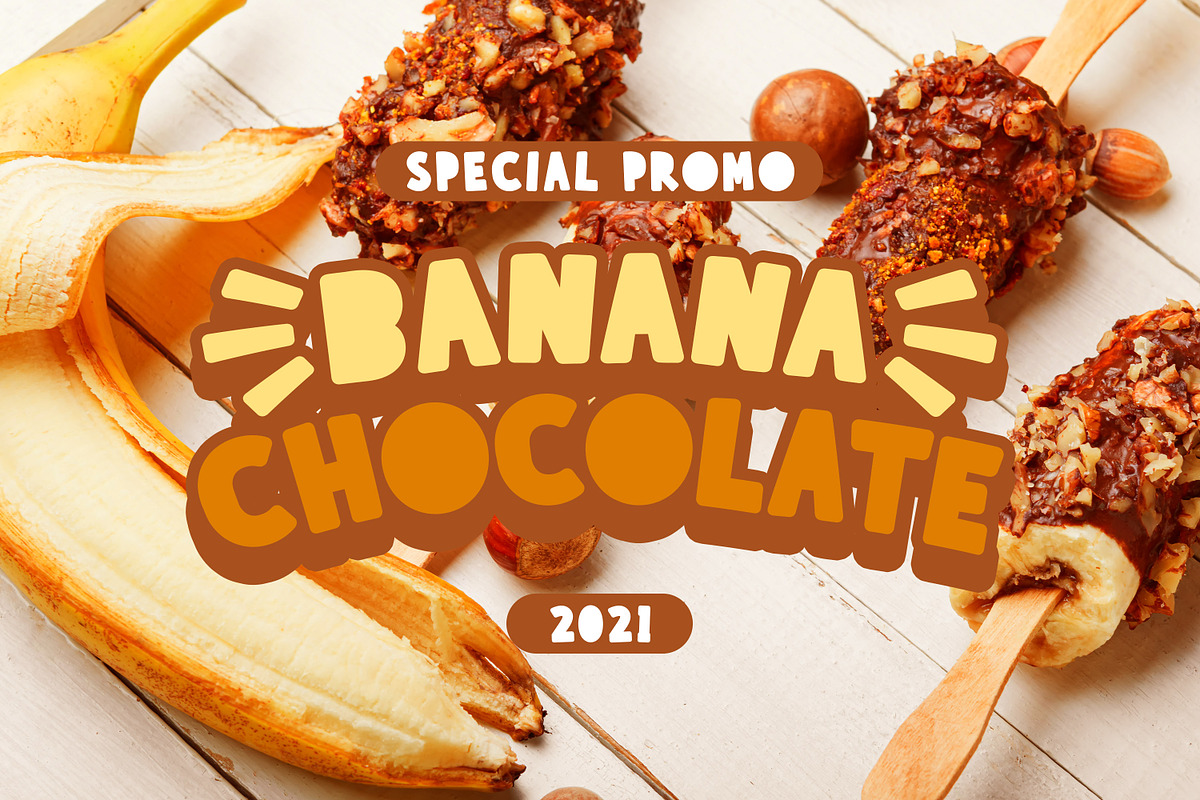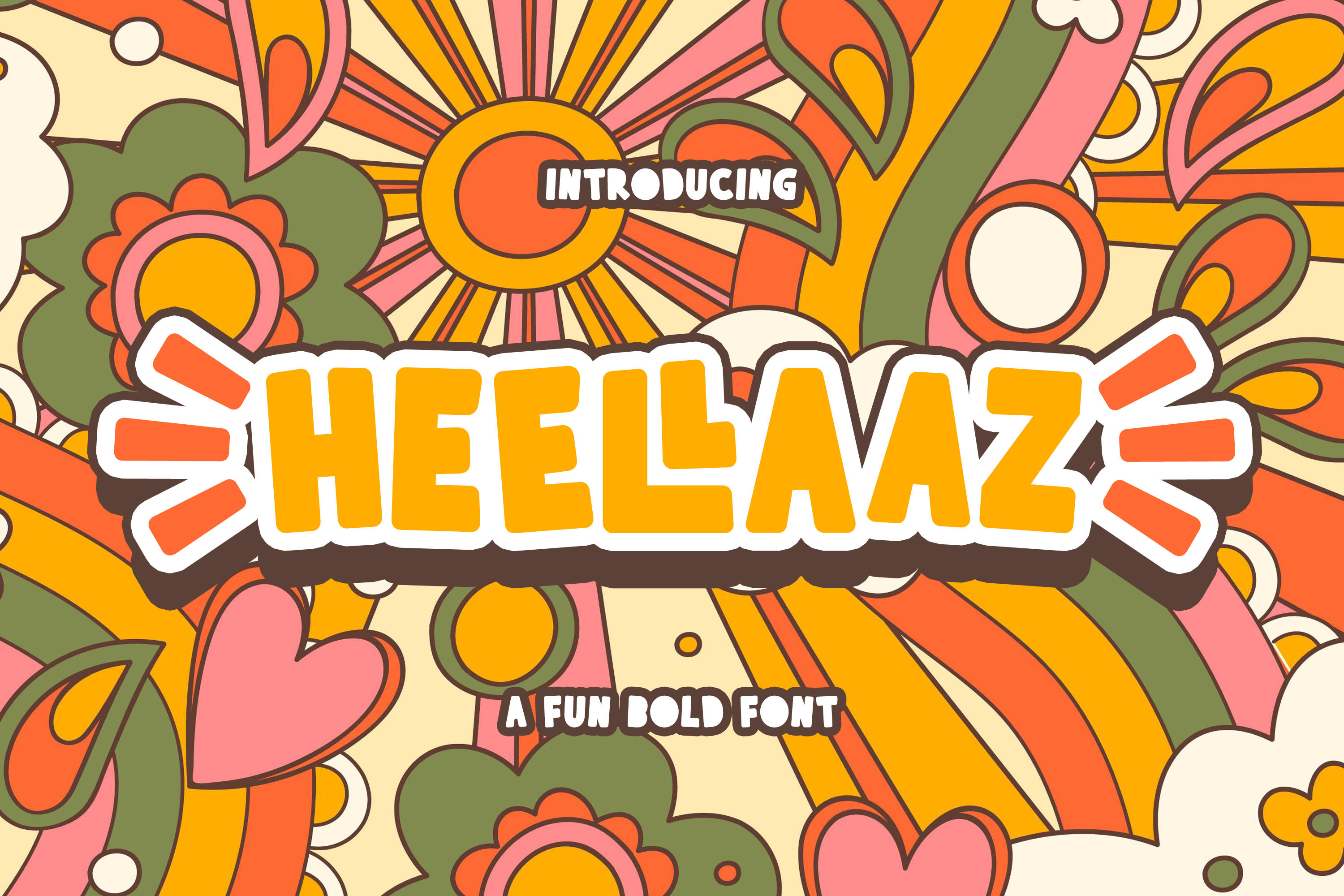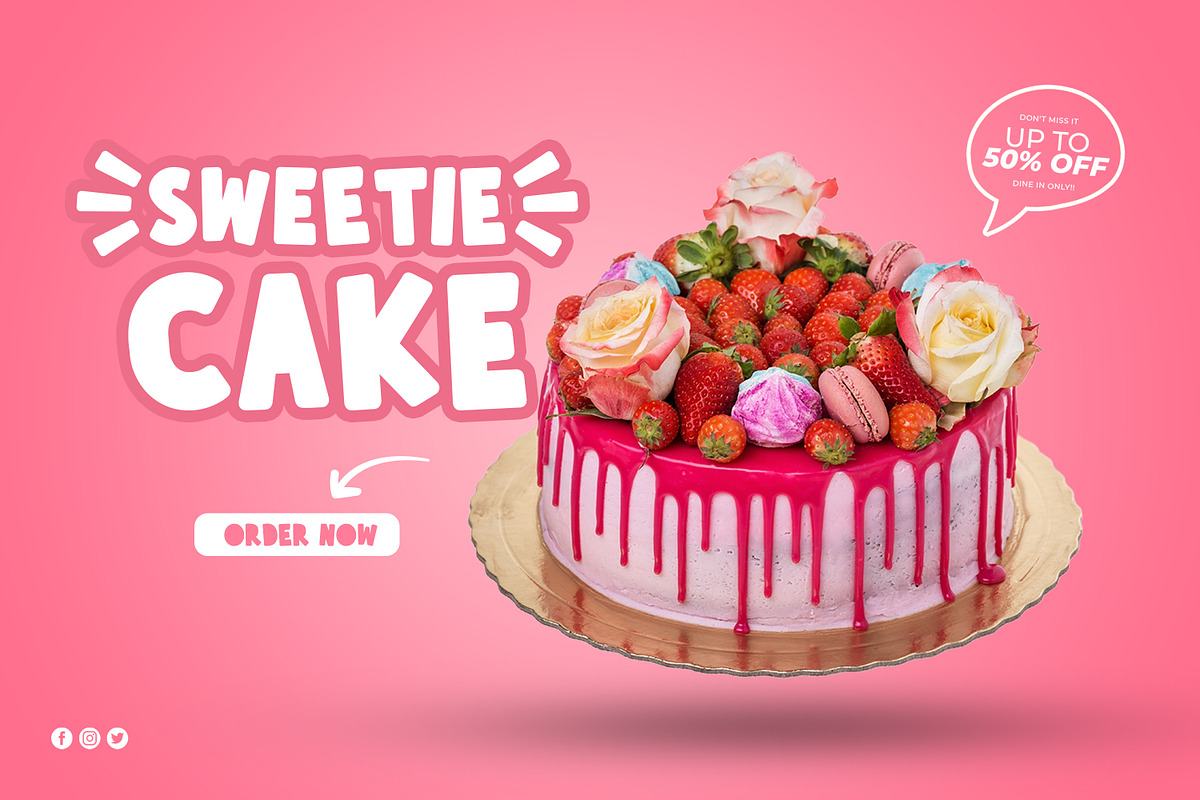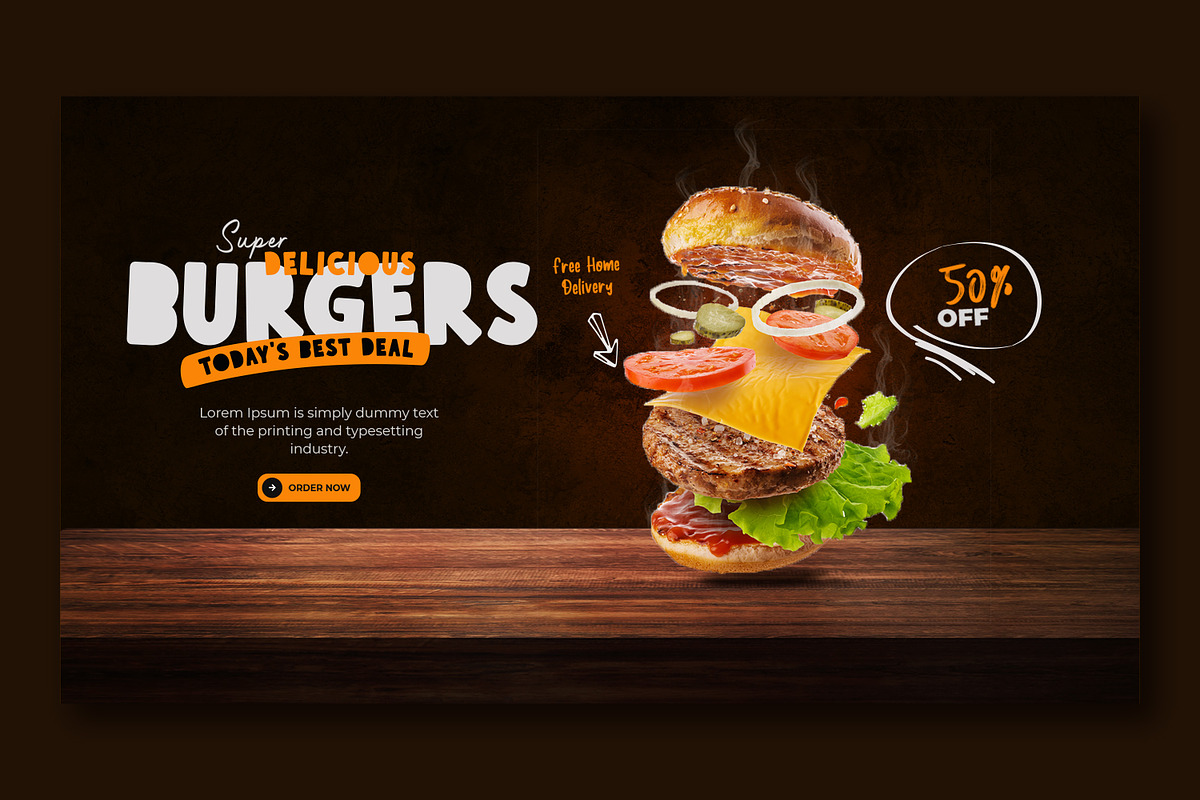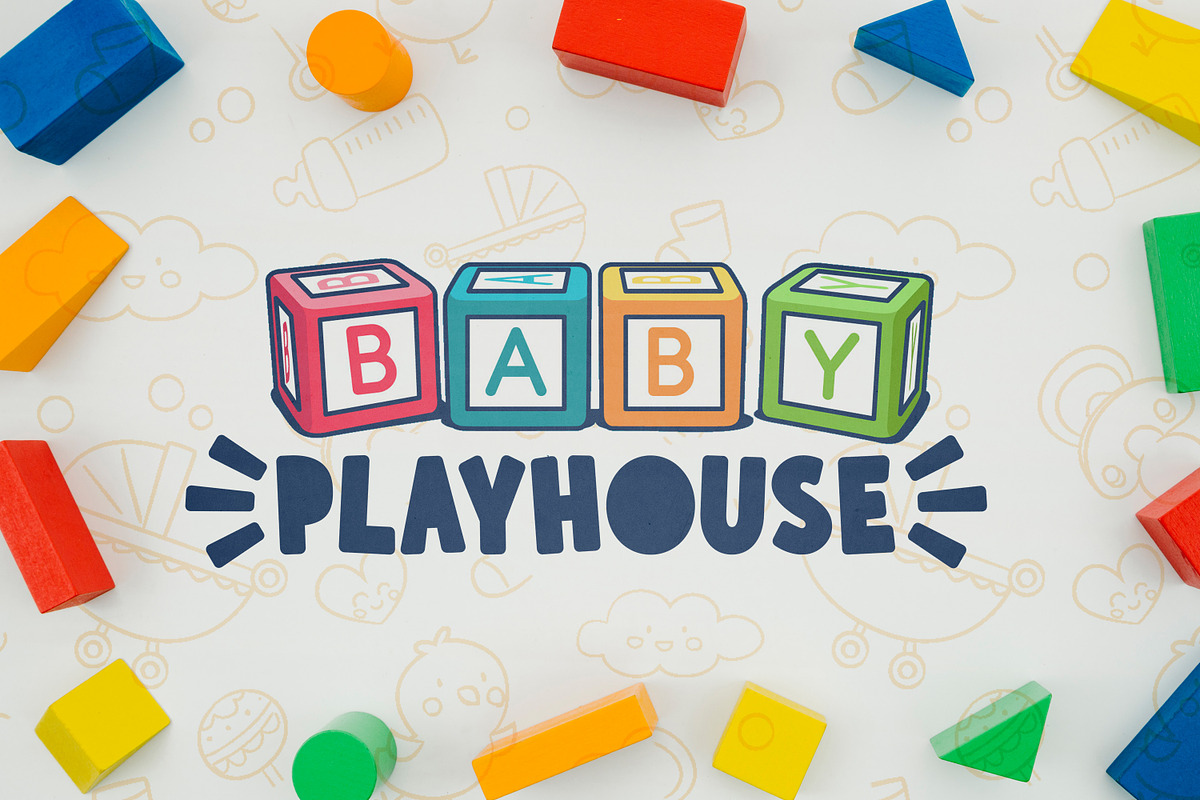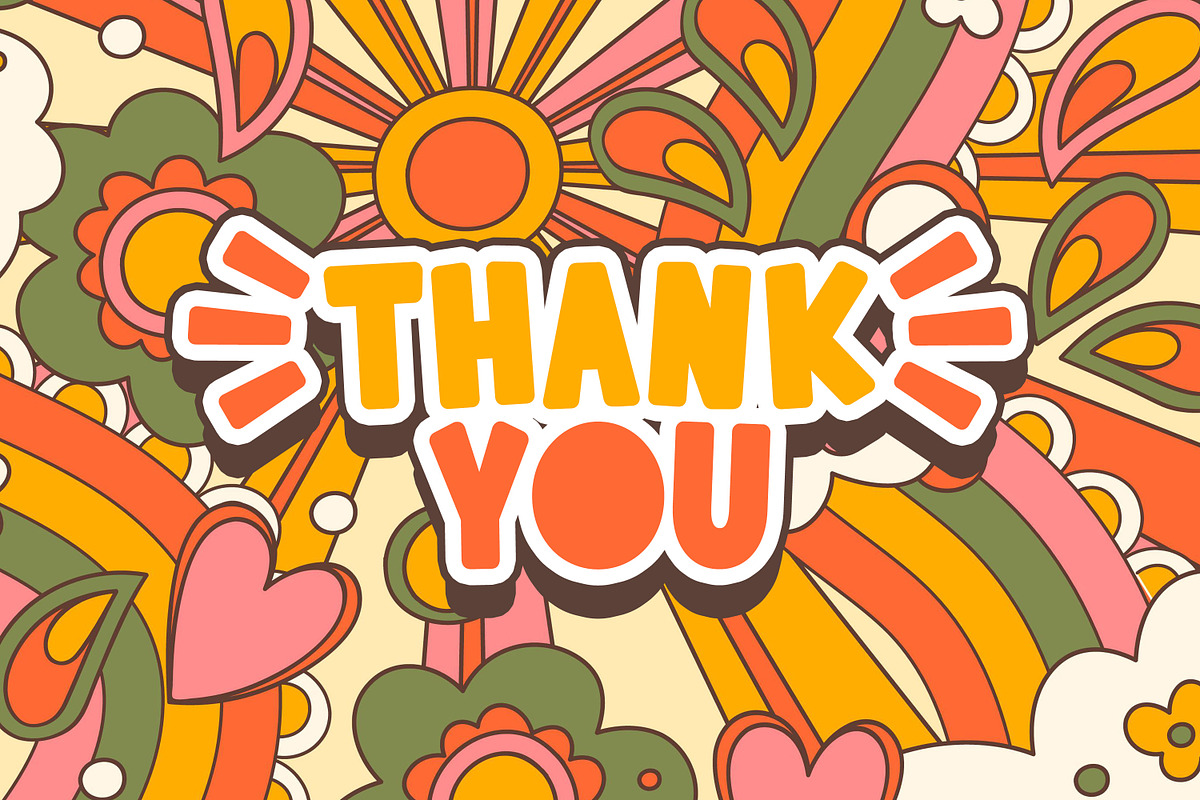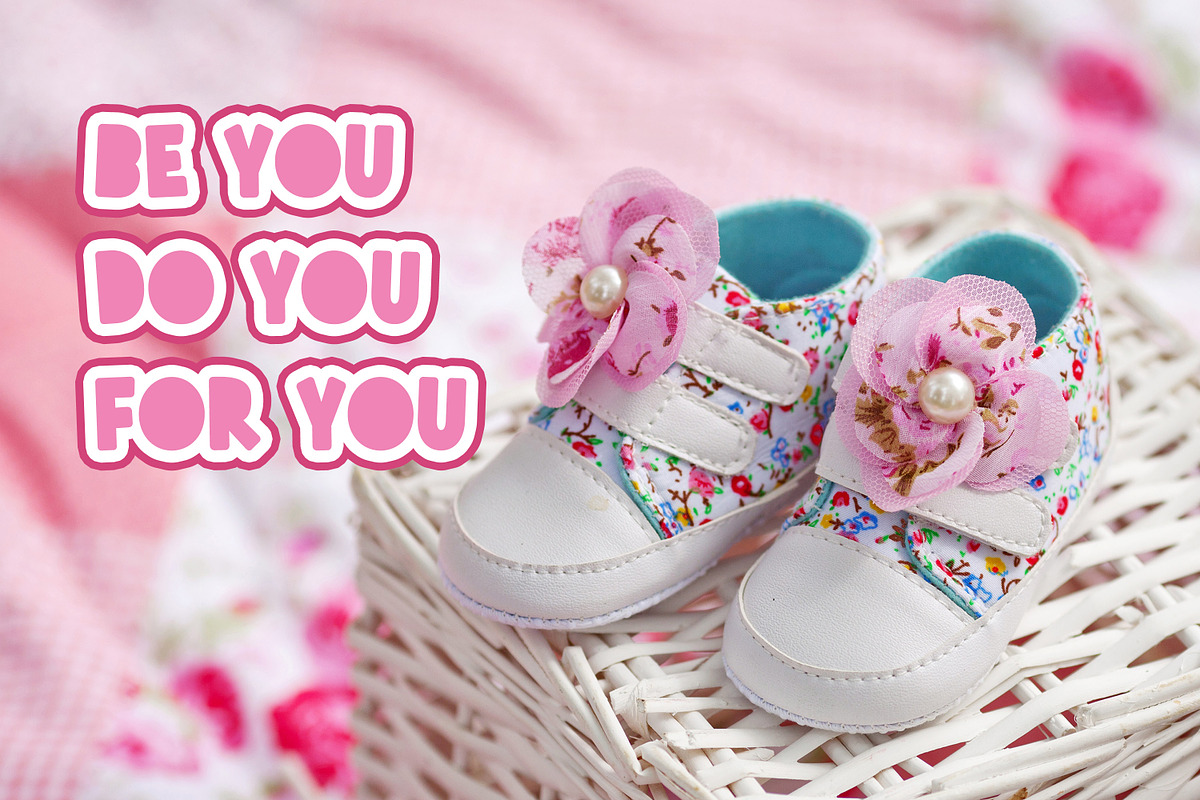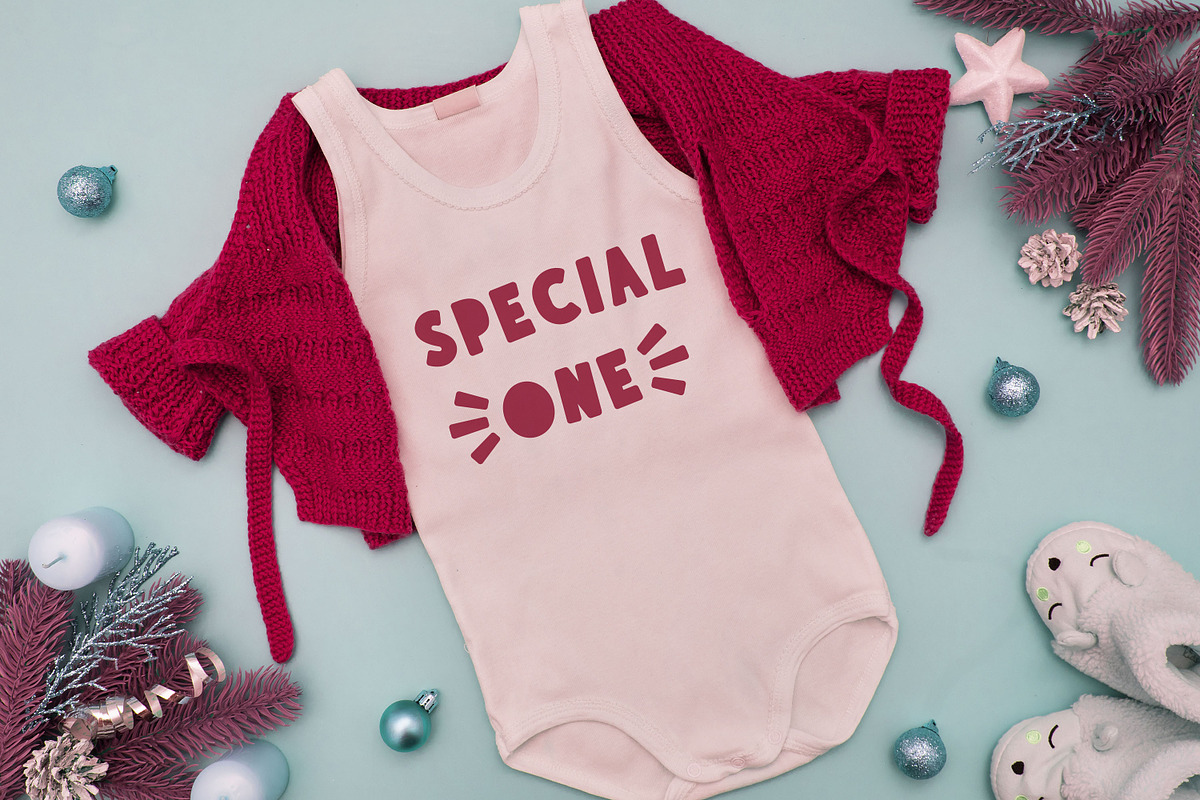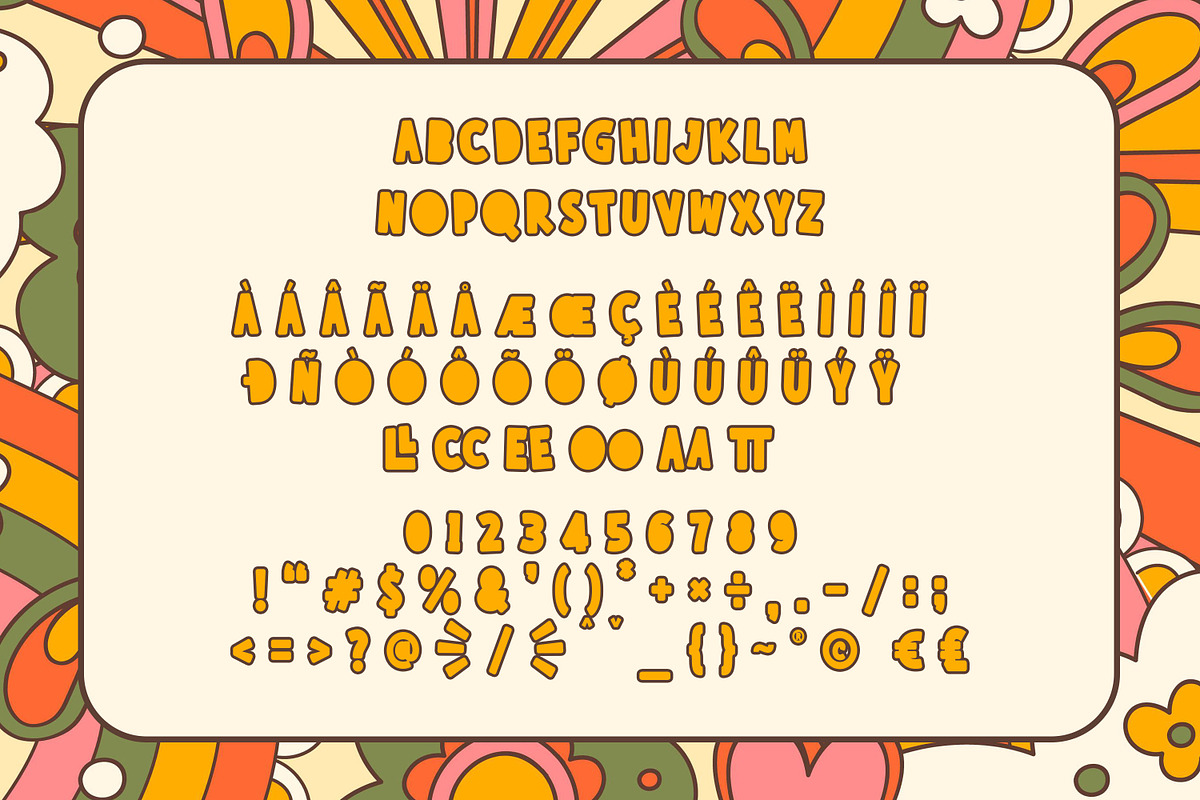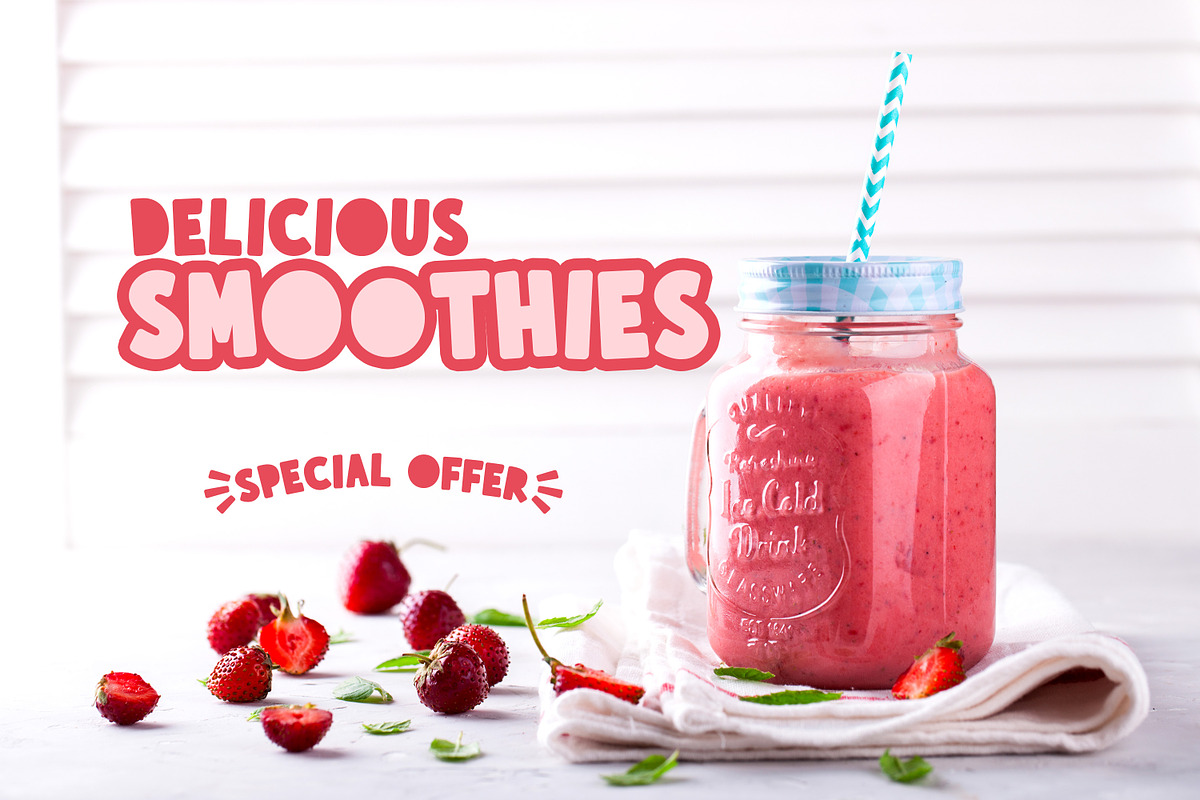
Heellaaz is a Fun Bold Font
Heellaaz is a Fun Bold Display Sans that will make your designs look modern, unique and fun. It’s perfect for labels, quotes, posters, DIY projects, branding, packaging, greeting cards, websites, photography overlays, signs, window art, scrapbooking, tags and so much more!